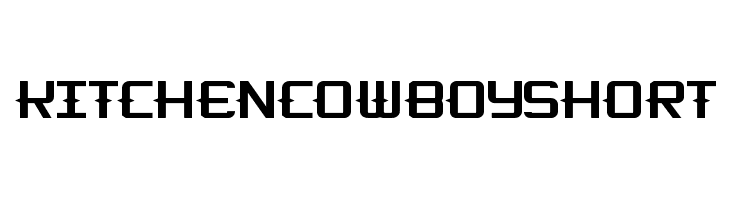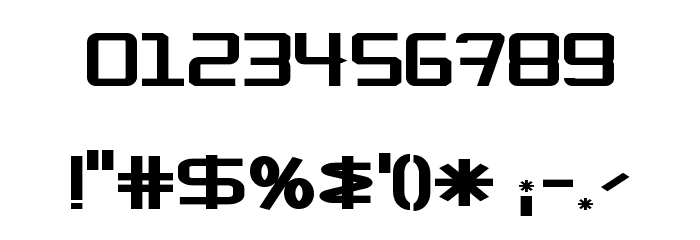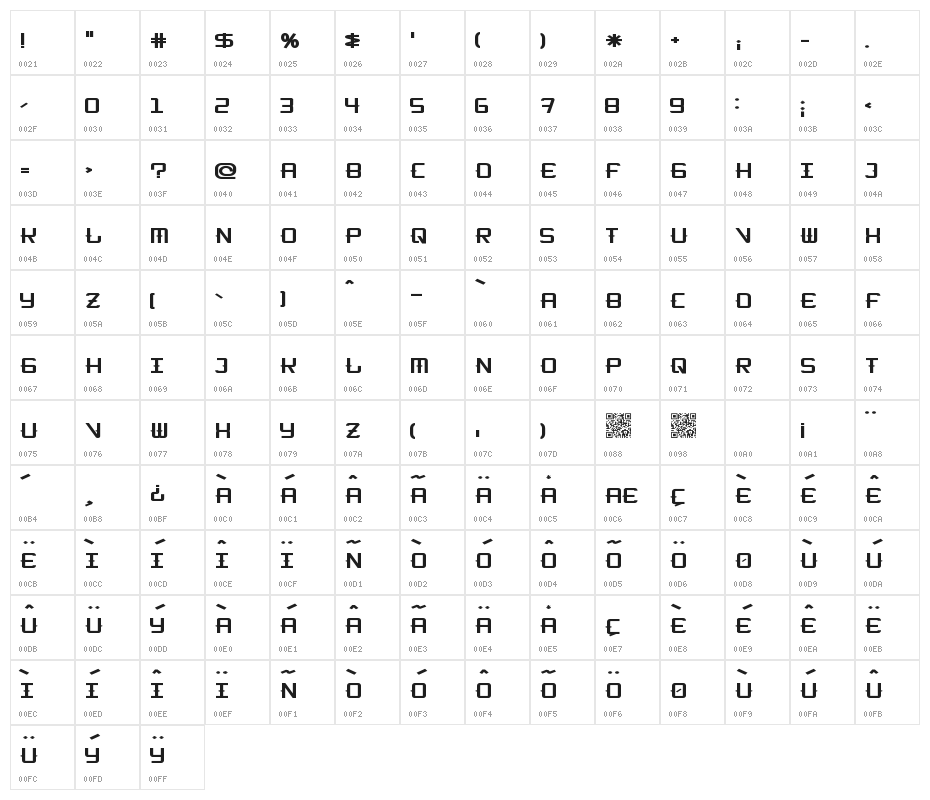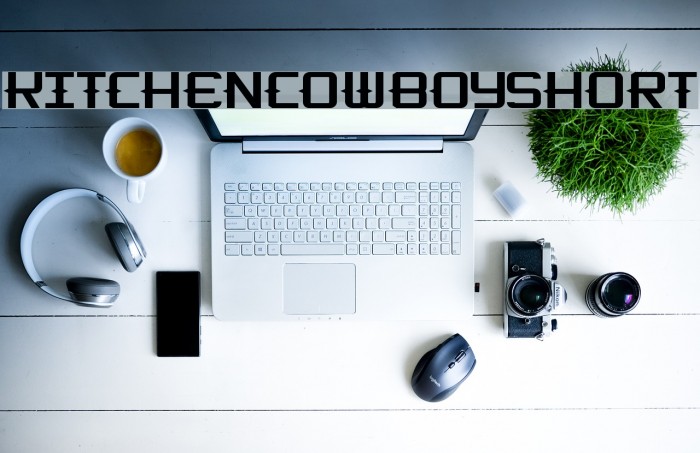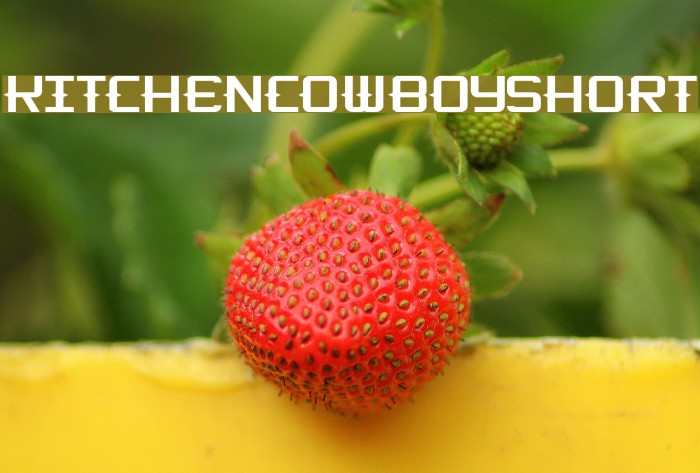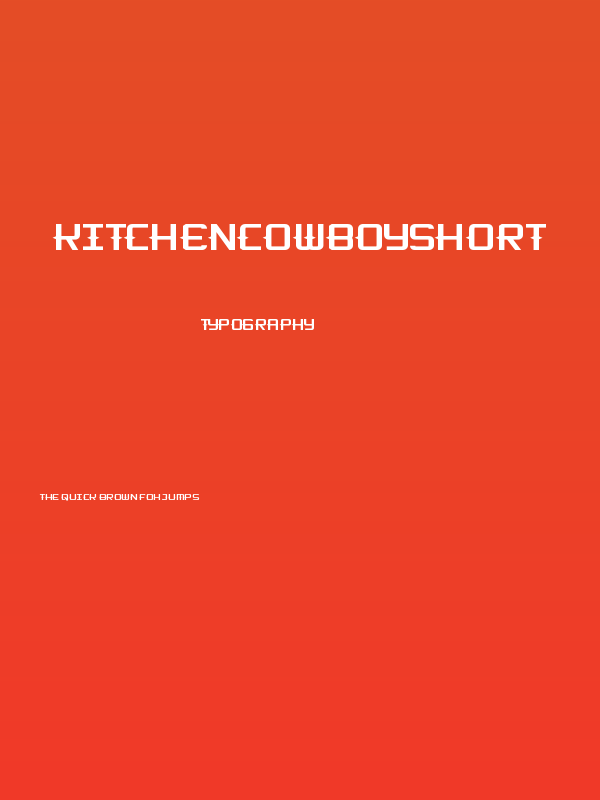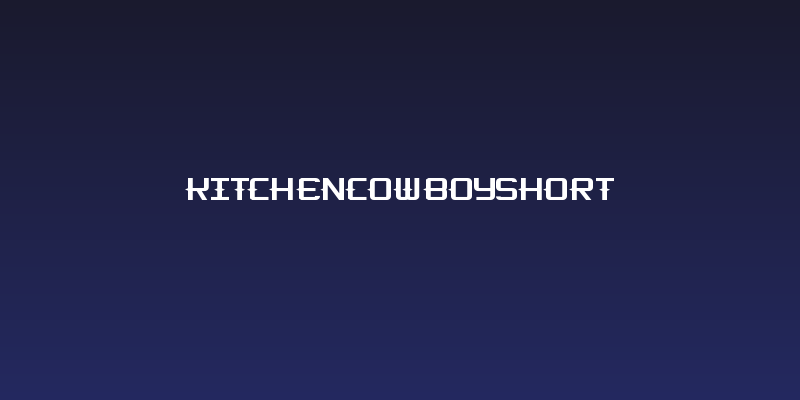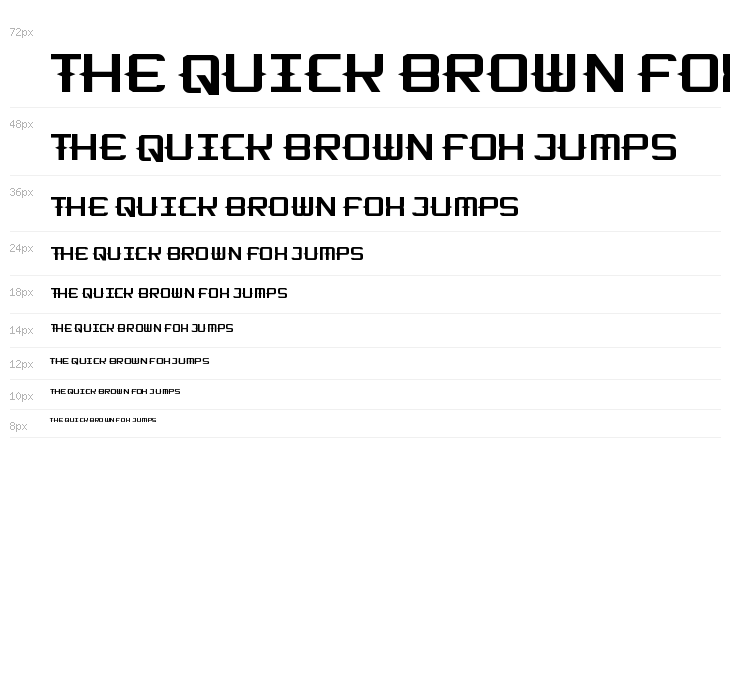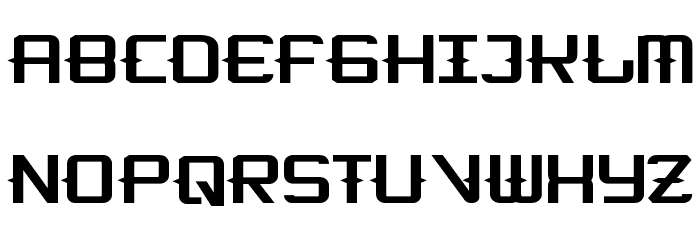
KitchenCowboyShort Font
KitchenCowboyShort Description
This font features a bold and geometric design with a distinct industrial feel. The characters are constructed with straight lines and sharp angles, giving it a modern and edgy appearance. The uppercase and lowercase letters maintain a consistent height, contributing to a uniform look. The numbers and special characters follow the same design principles, ensuring cohesion across all glyphs. The font's unique style makes it stand out, with a strong presence that commands attention. Its structured form is ideal for projects that require a contemporary and robust aesthetic.